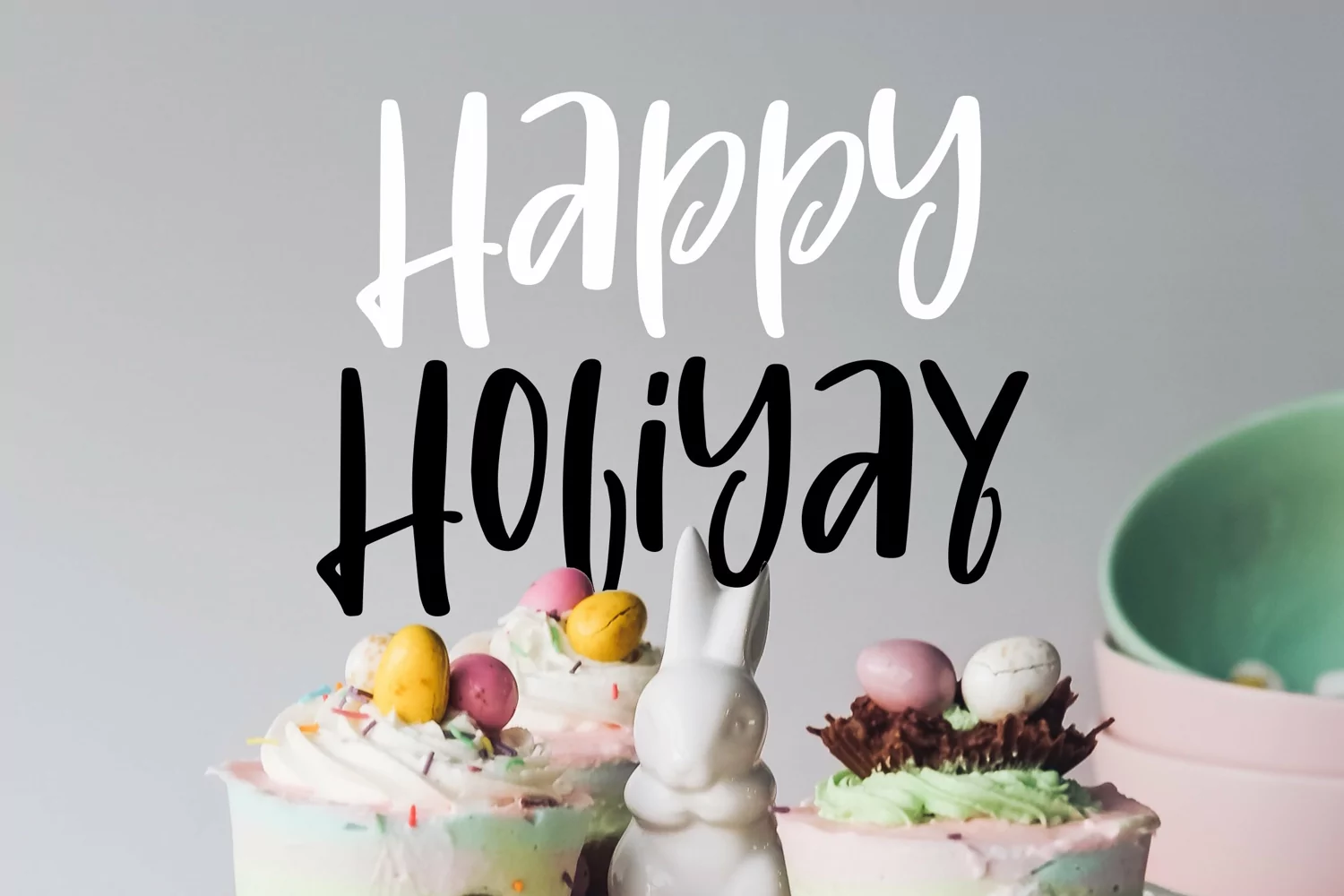
Easter Hunt - Cute Easter Font that contain lowercase, uppercase, symbol, and also support multi language. There’s a lot ligatures in this font. This Font also comes with ligatures, alternates and many more. this font suitable for fashion, branding, catalog and other design what you want.